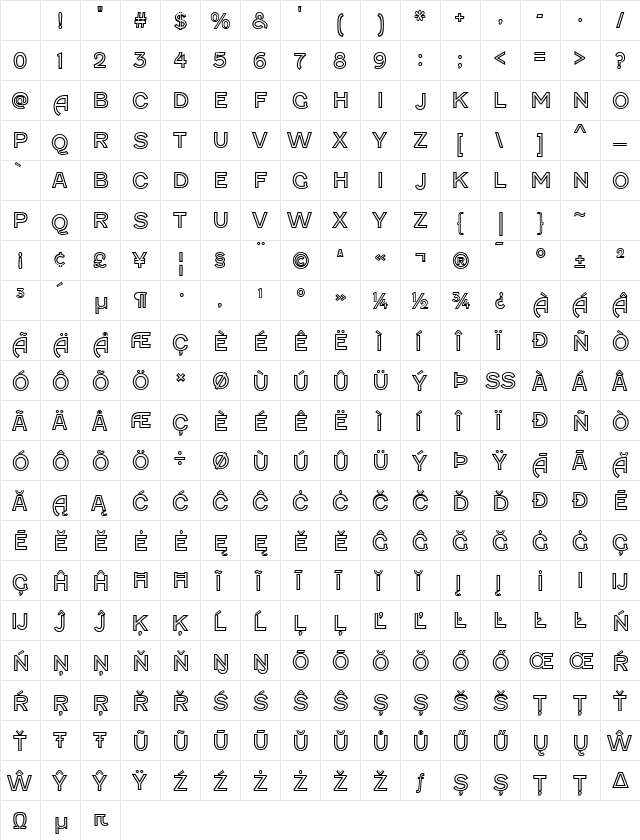
Fenwick is built around its visual character rather than neutral utility - its distinctive forms are designed to make an impression at display sizes.
Font Pairing: Pair with a clean neutral sans-serif for body copy to let Fenwick's character lead without overwhelming the composition.
Pro Tip: Use Fenwick exclusively at display sizes - it was designed to be seen, not read at length. Let a neutral companion handle body copy.